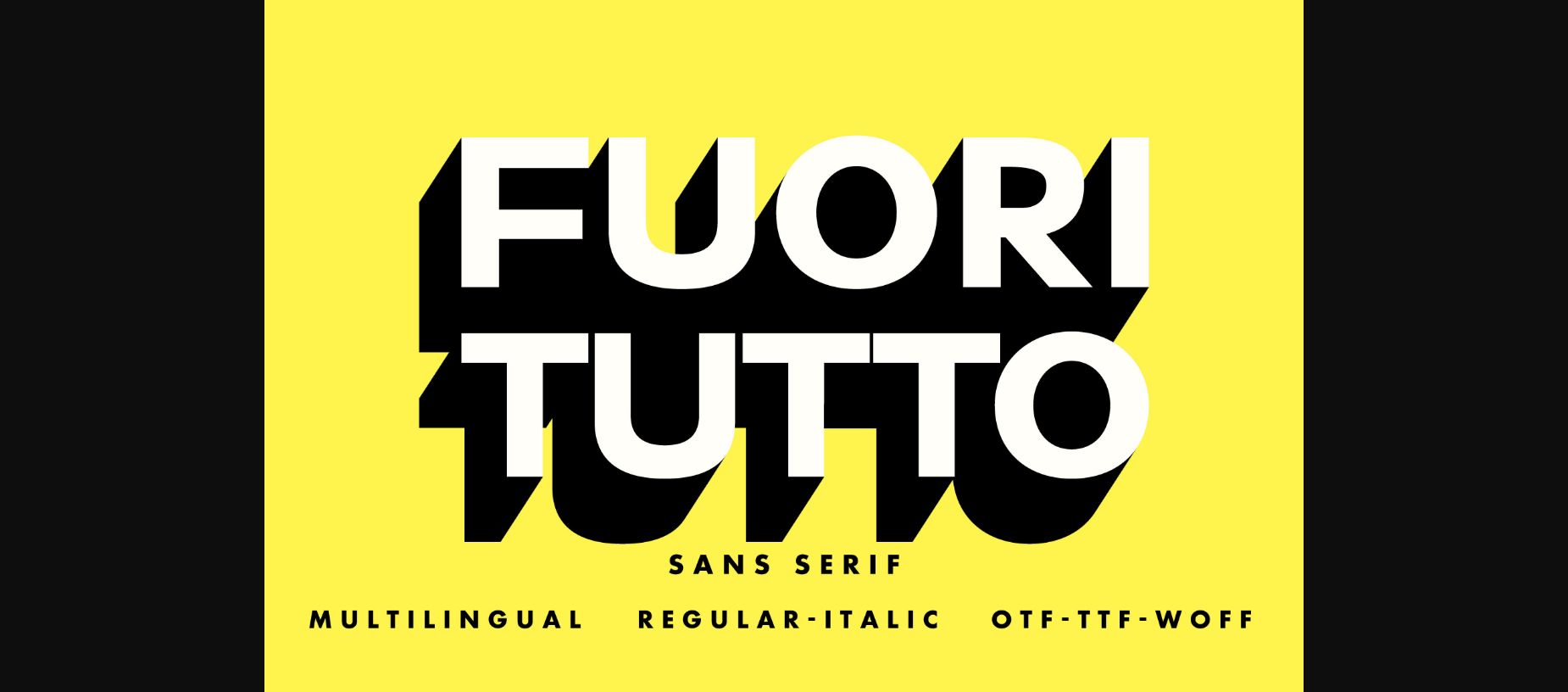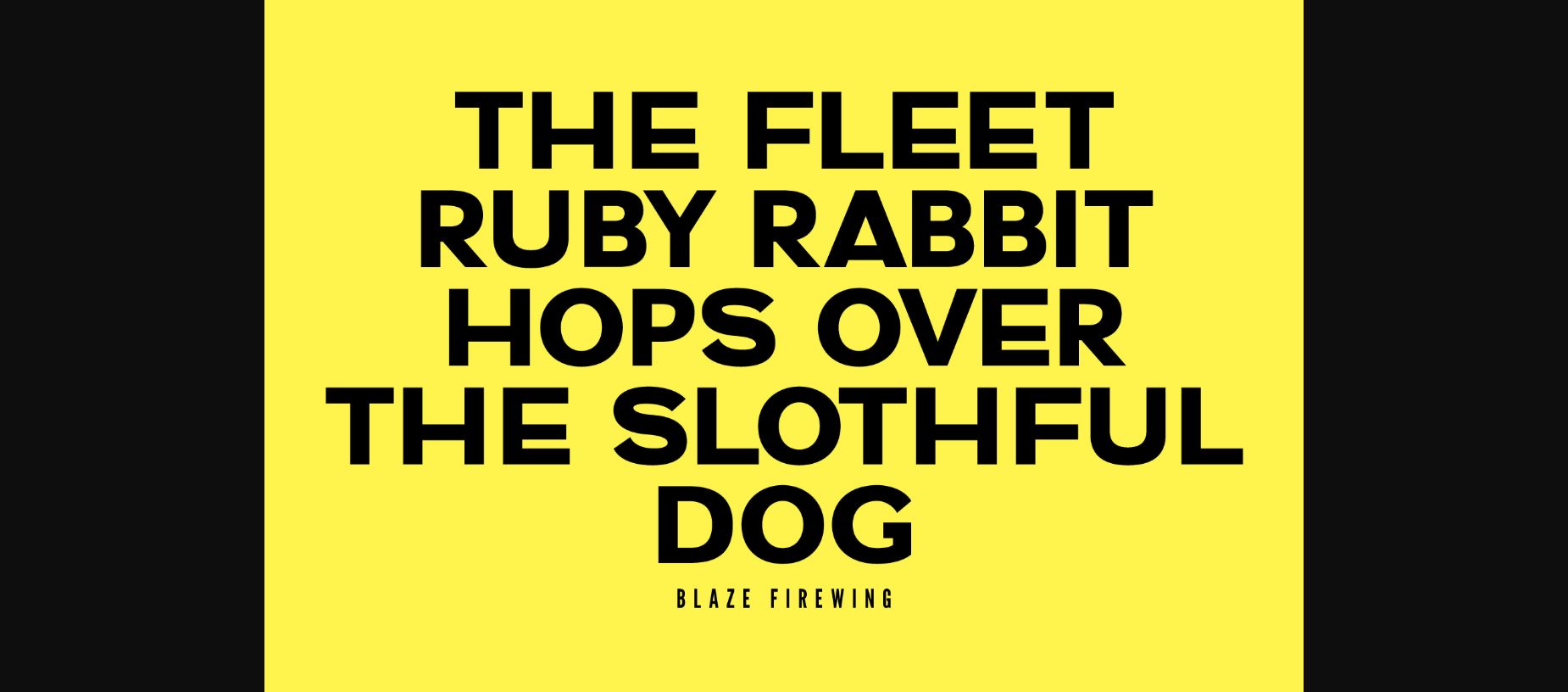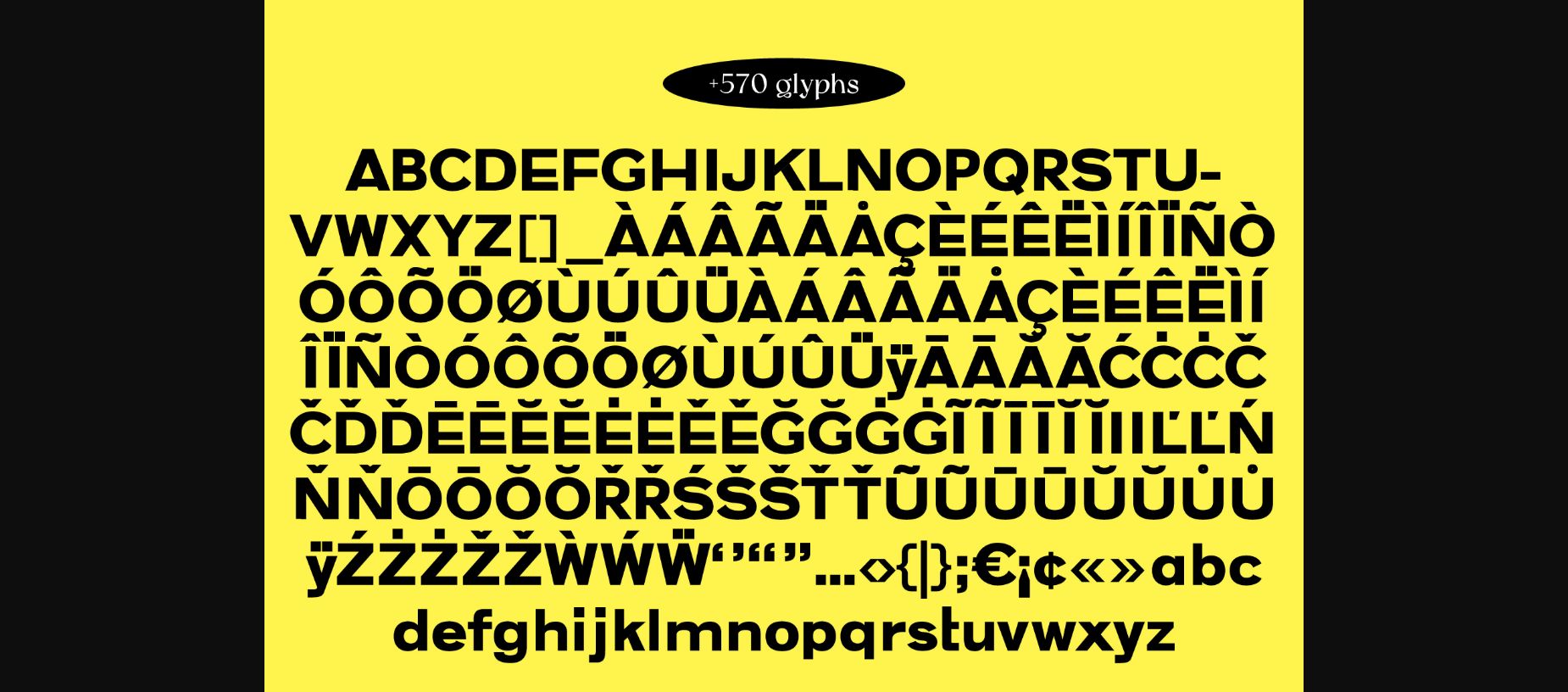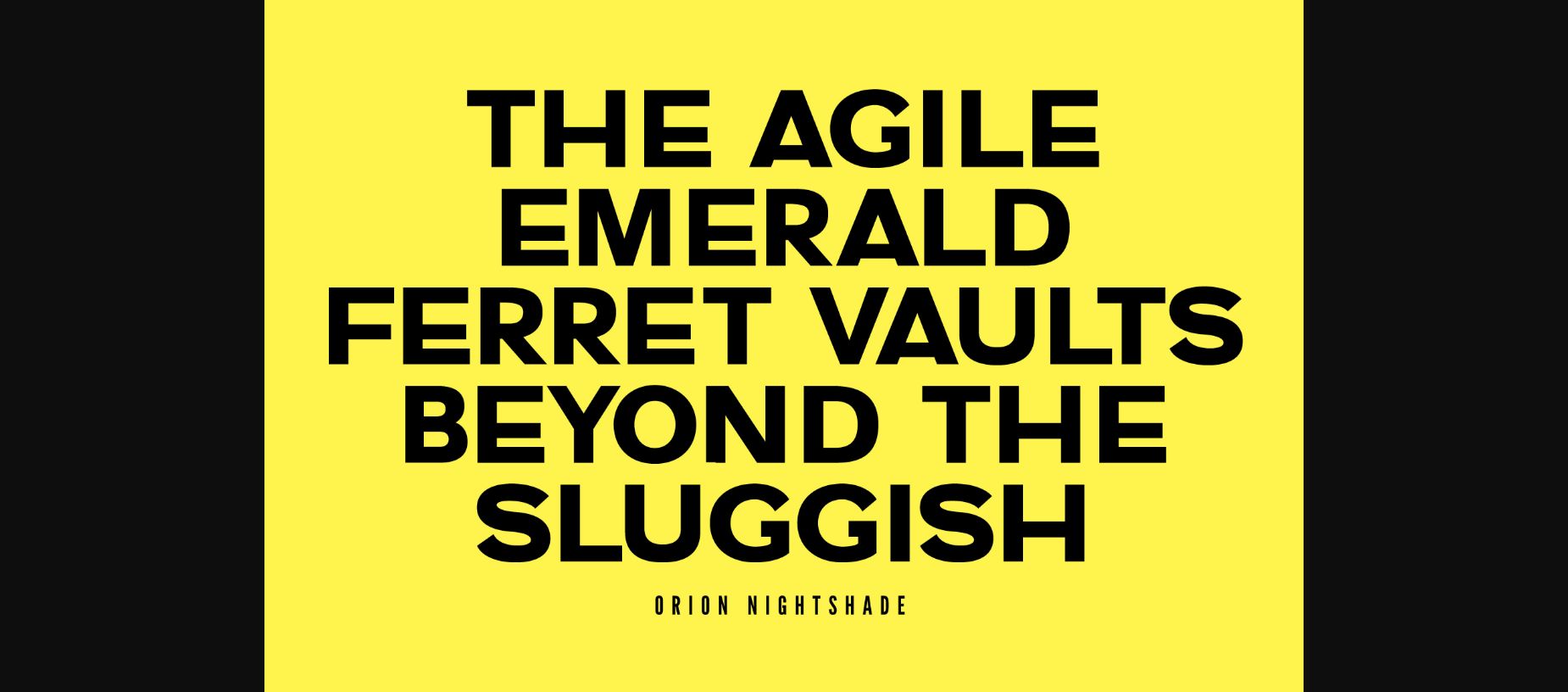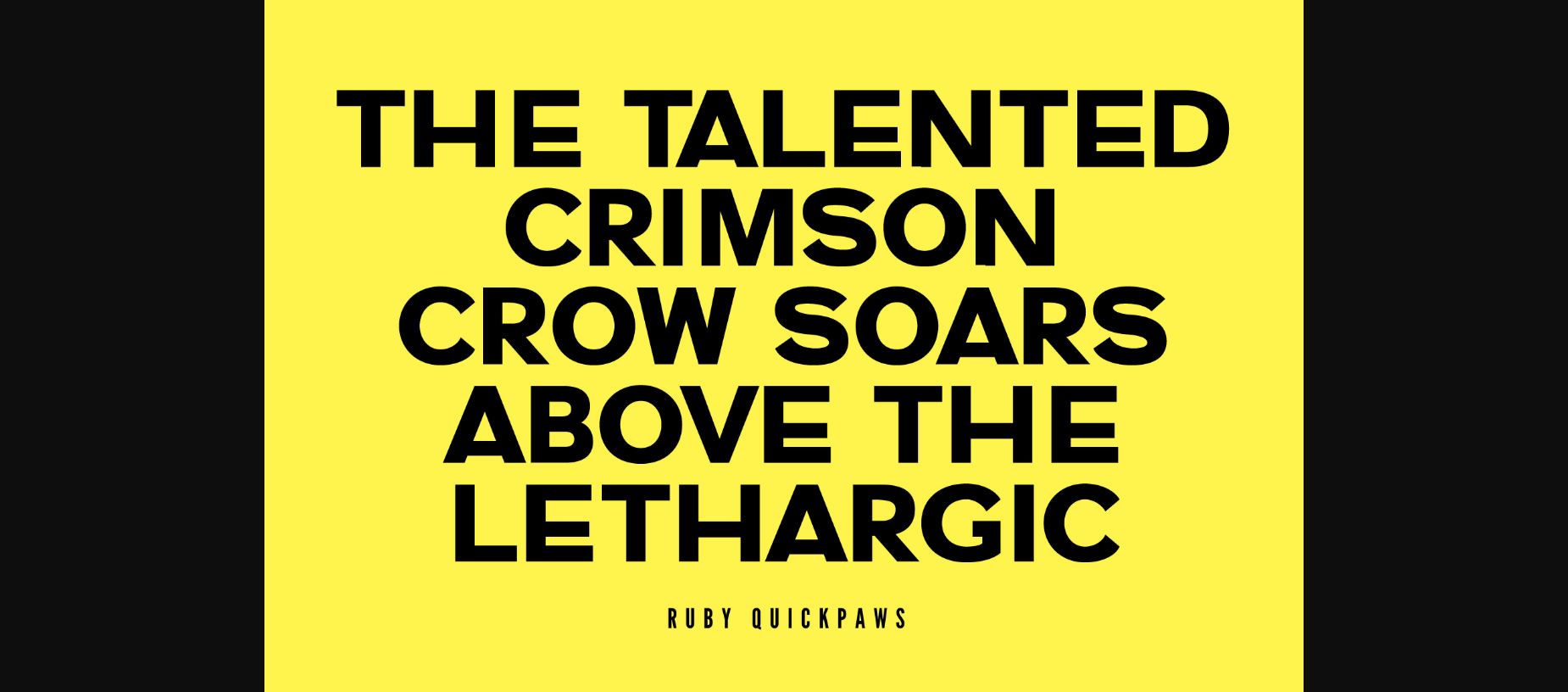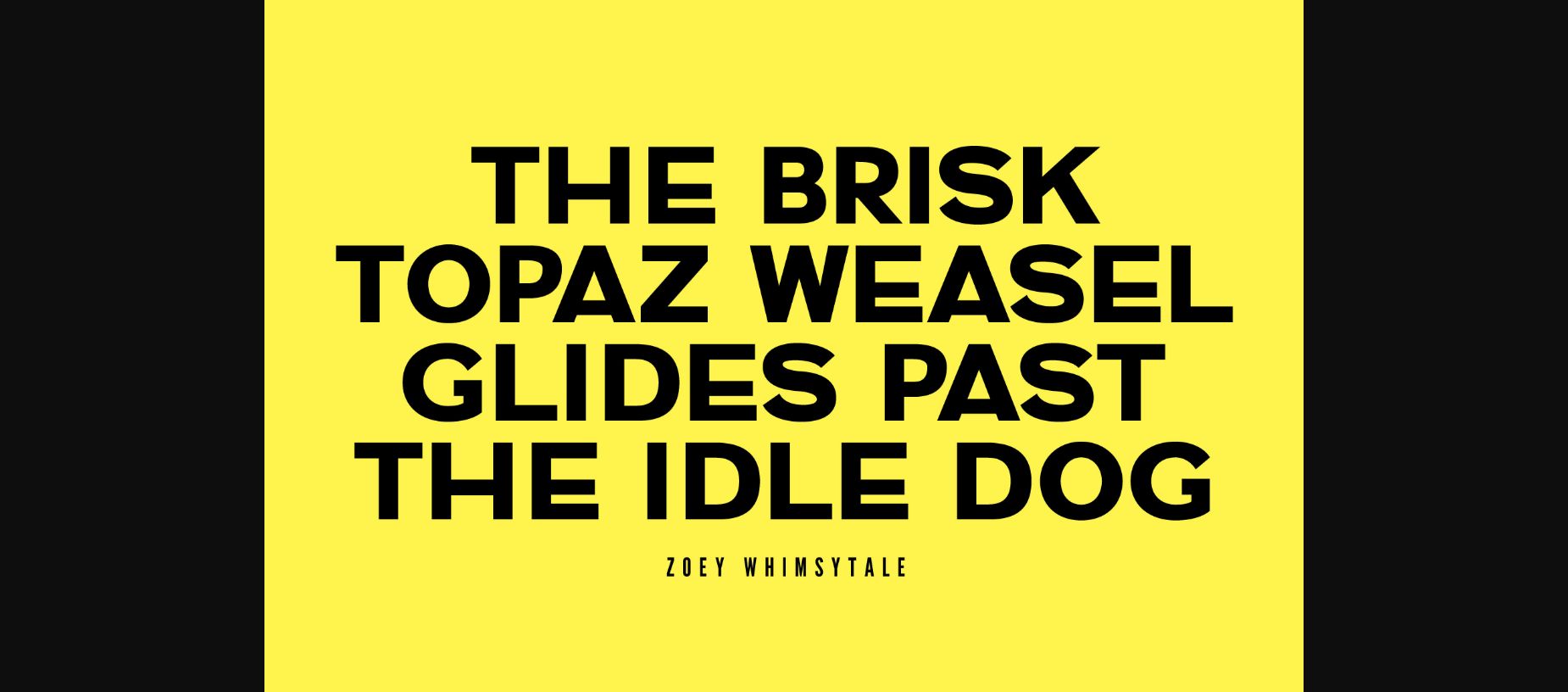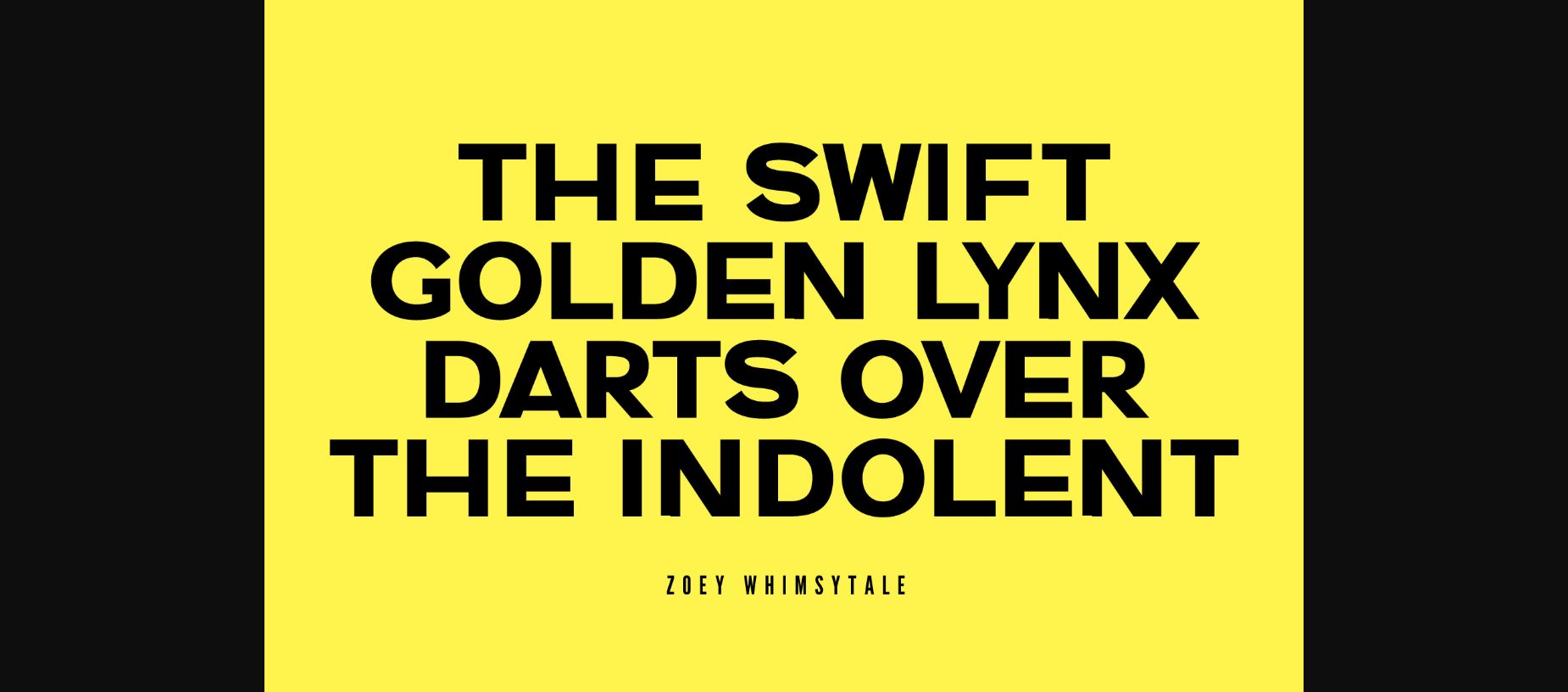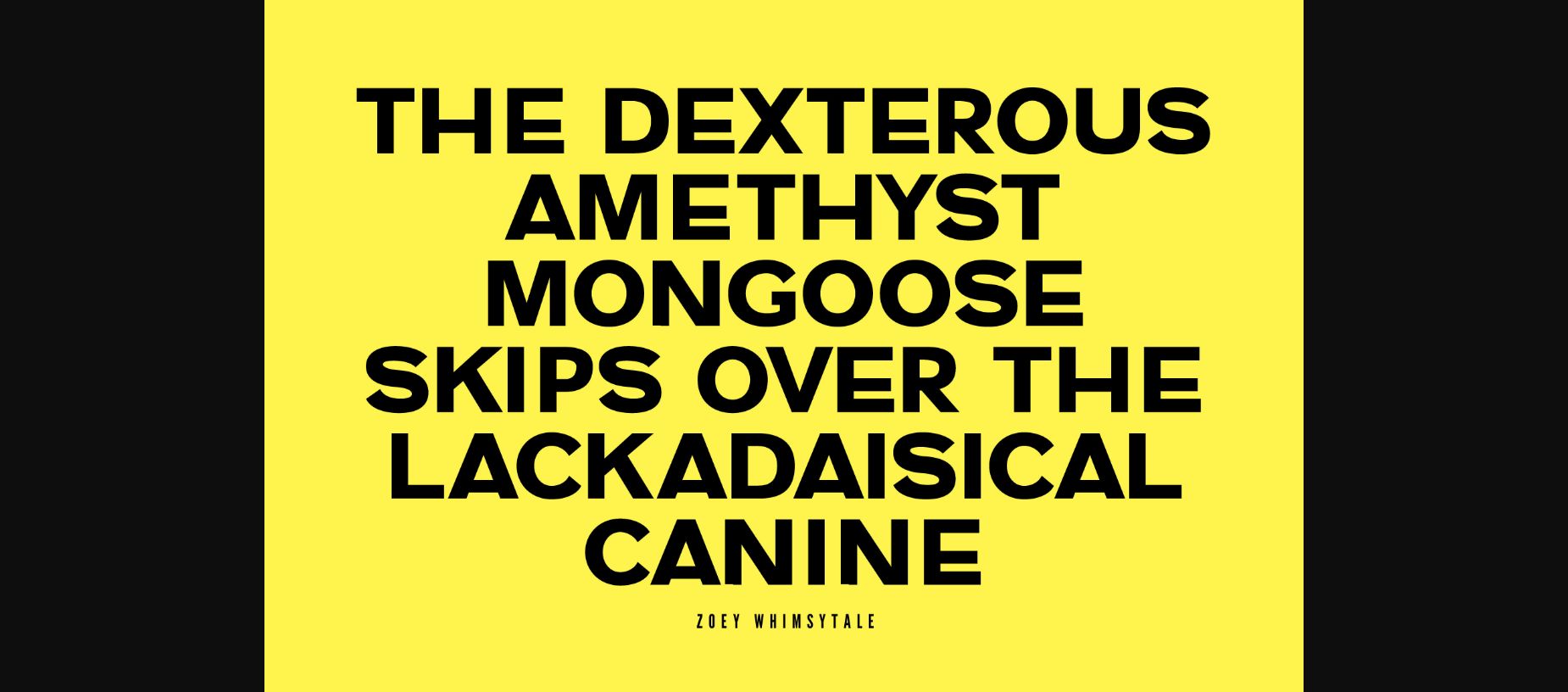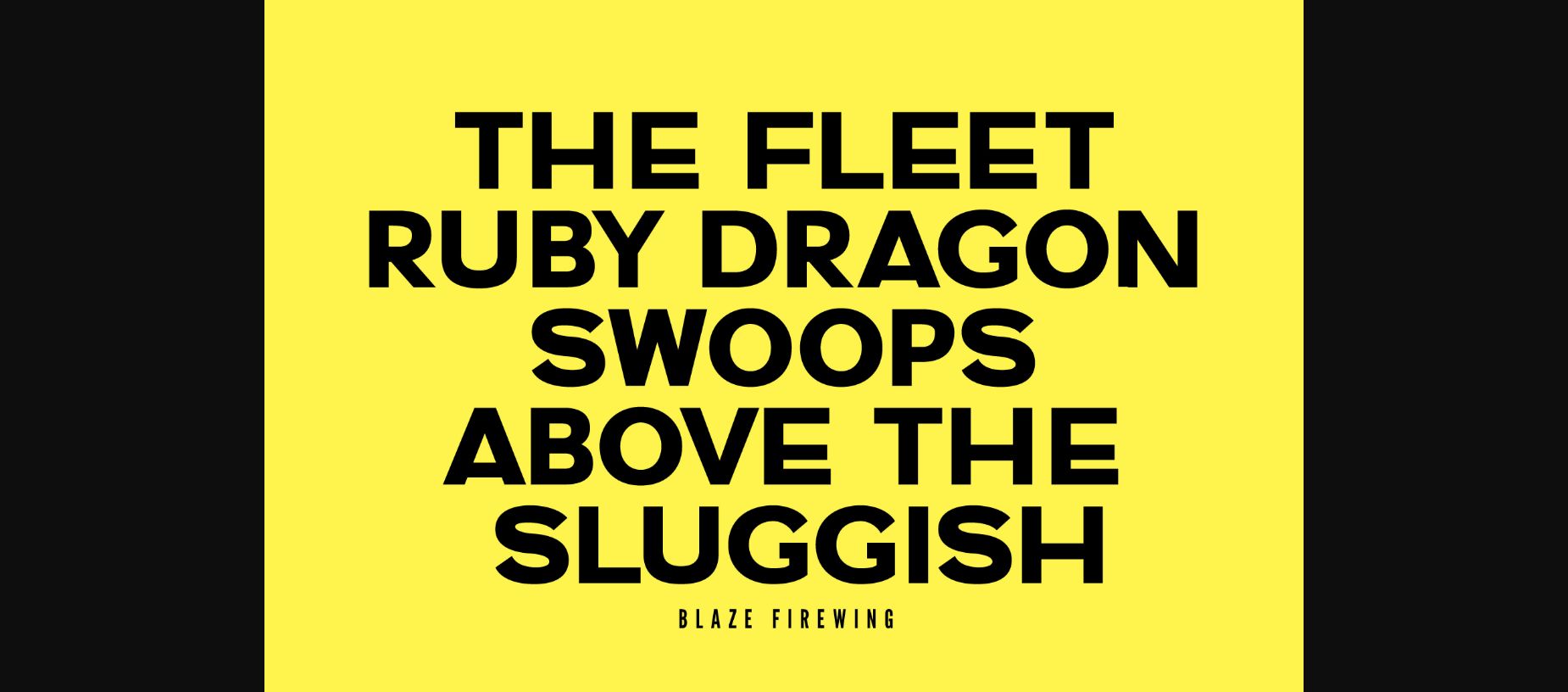
Fuori Tutto Font
Introducing “Fuori Tutto” – Redefining Modern Typography.
Elevate your designs with the sleek sophistication of “Fuori Tutto,” a minimalist sans serif typeface that effortlessly embodies the essence of clean lines and geometric precision. Crafted for the contemporary creator, this typeface stands as a testament to the art of simplicity, breathing life into your projects with its distinct modern flair.
Embrace the timeless allure of minimalism as “Fuori Tutto” embraces legibility without compromise. The absence of decorative elements highlights the purity of form, guaranteeing that your message takes center stage, free from distractions. Whether it’s a headline that demands attention or body text that guides with grace, this typeface adapts effortlessly to your design vision.